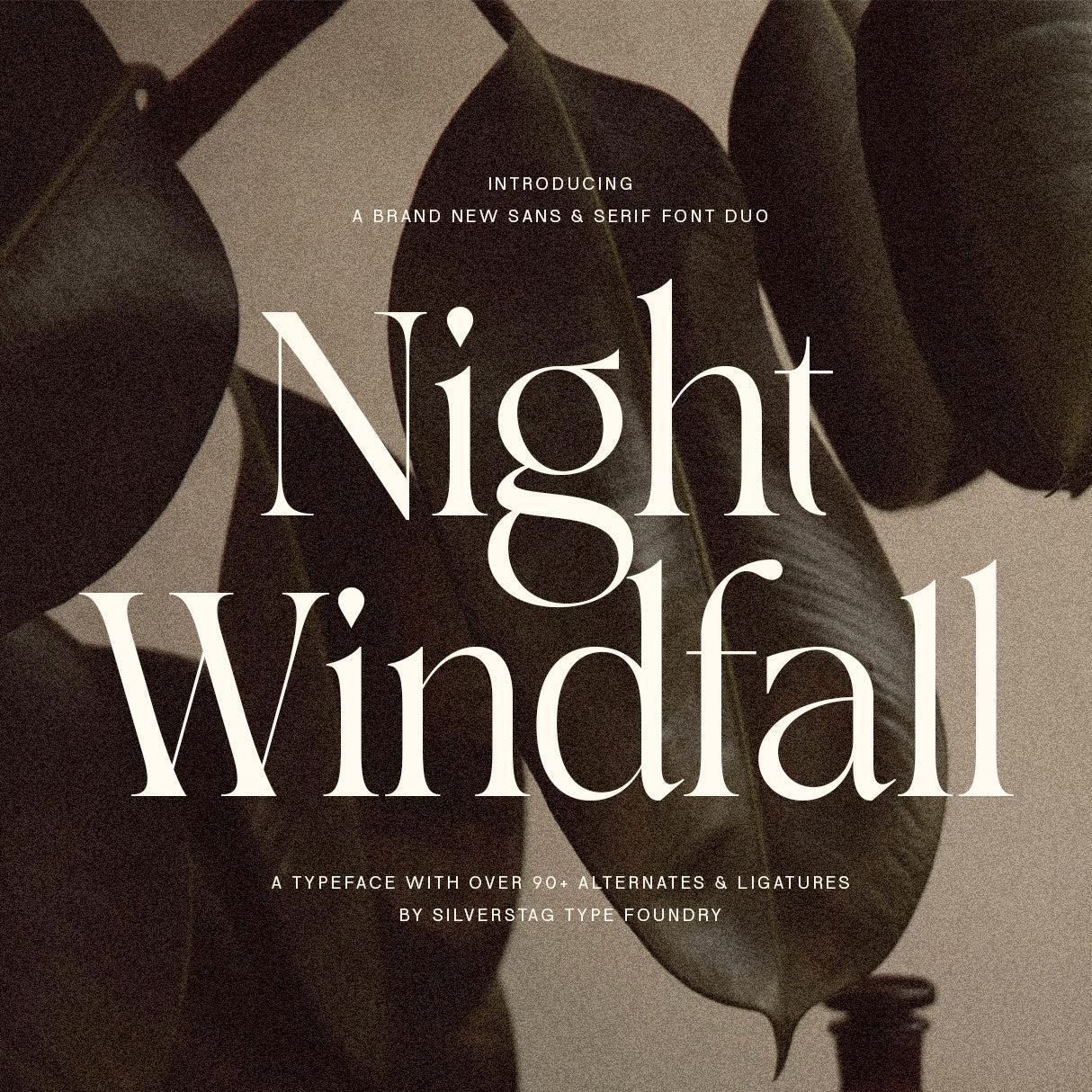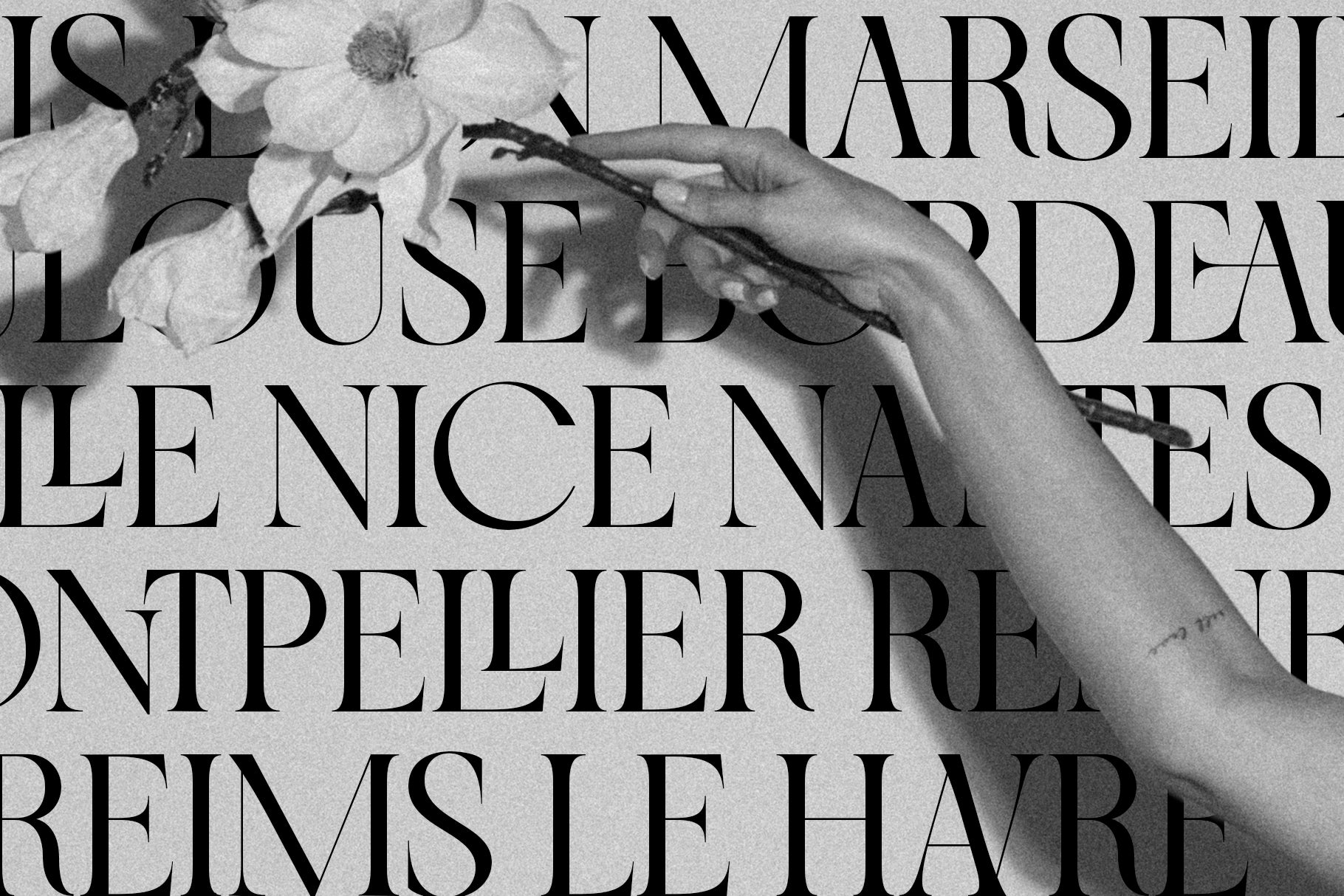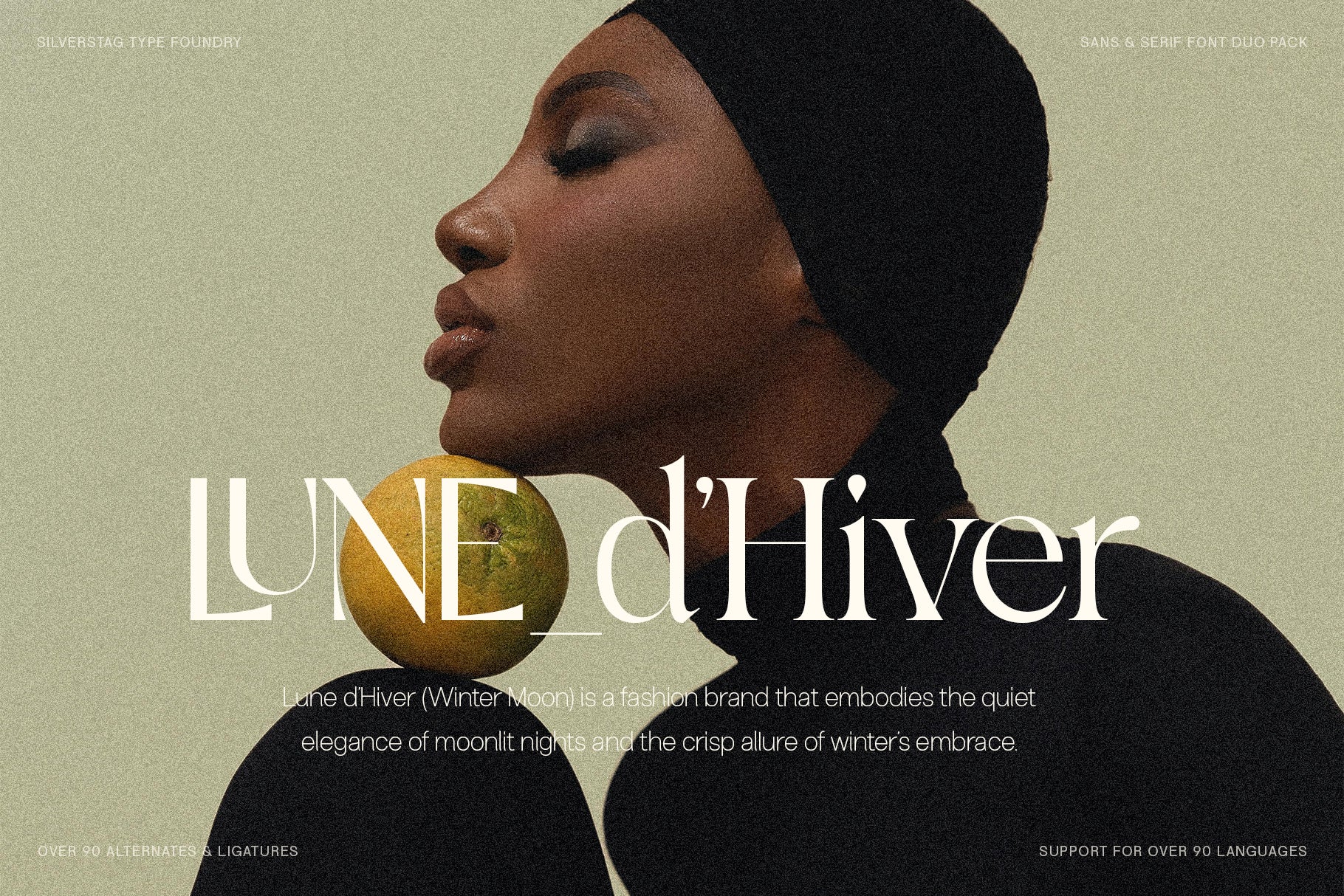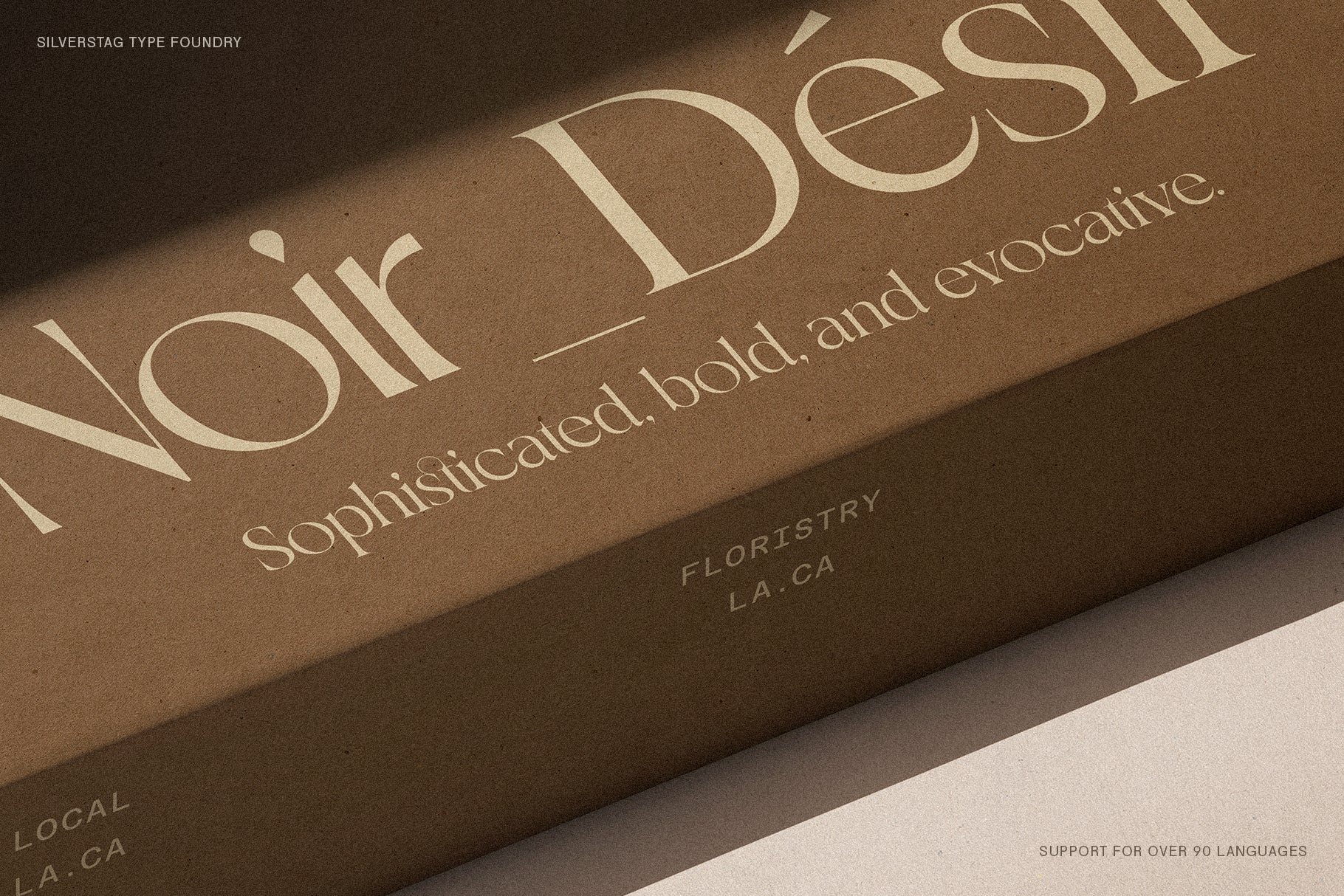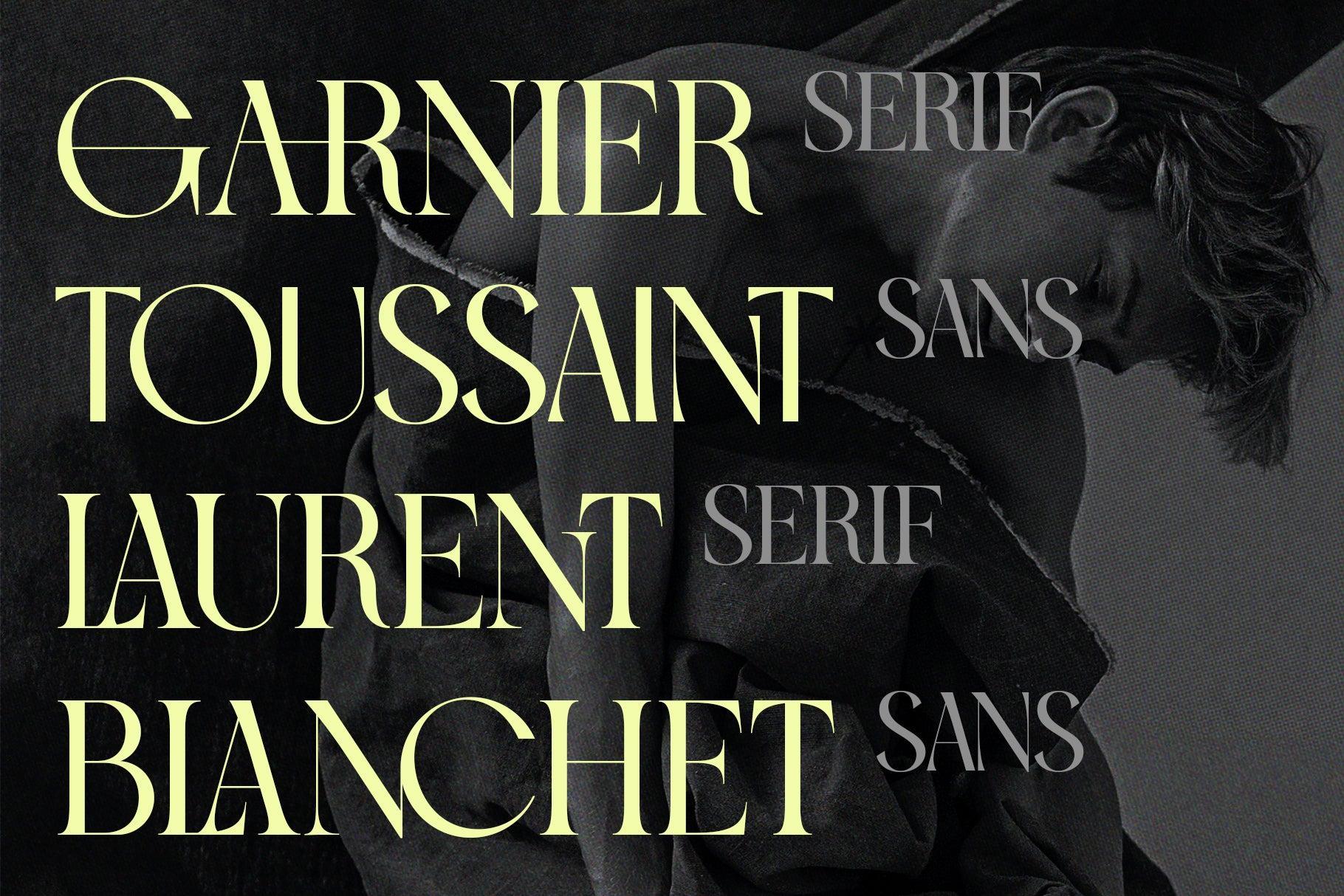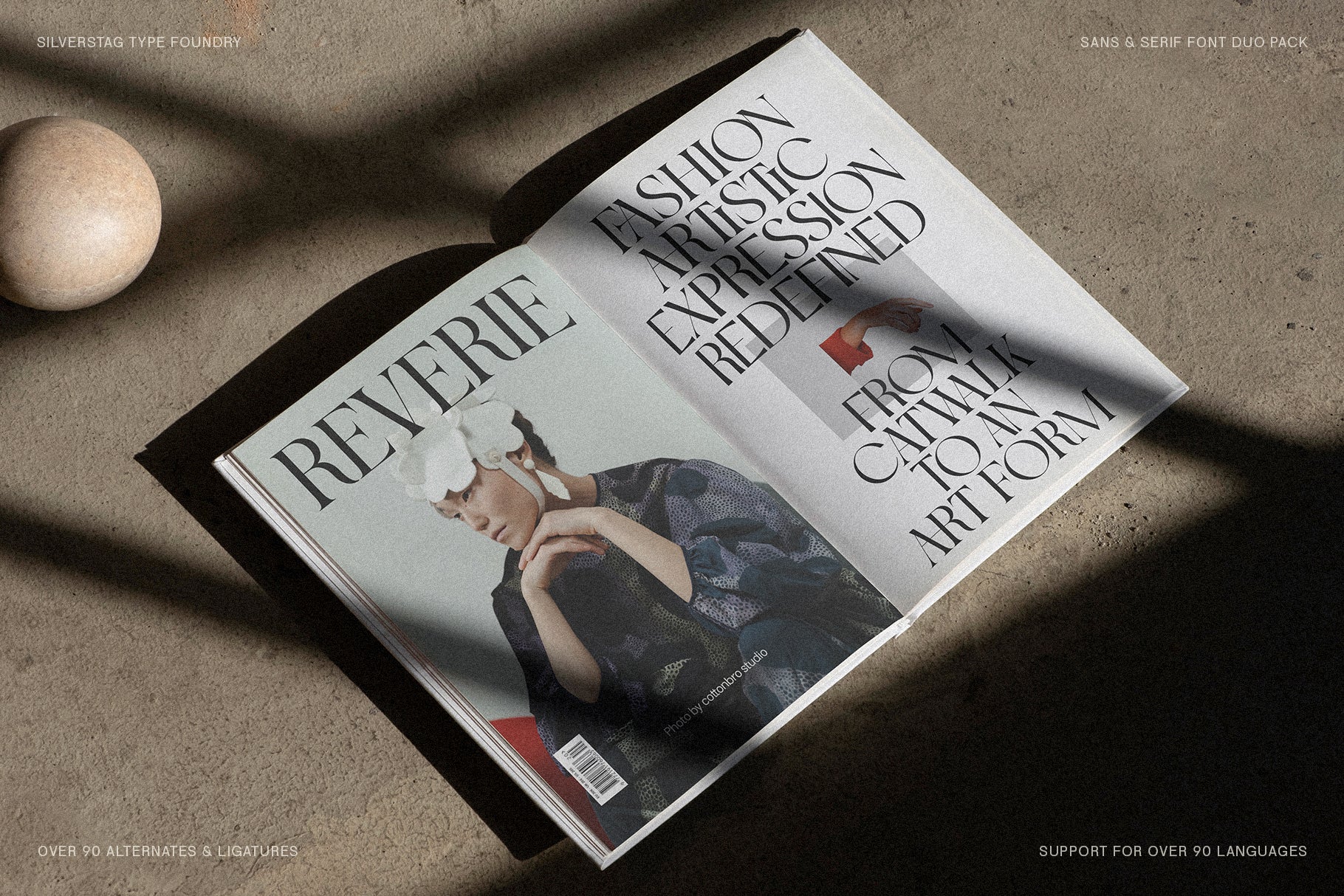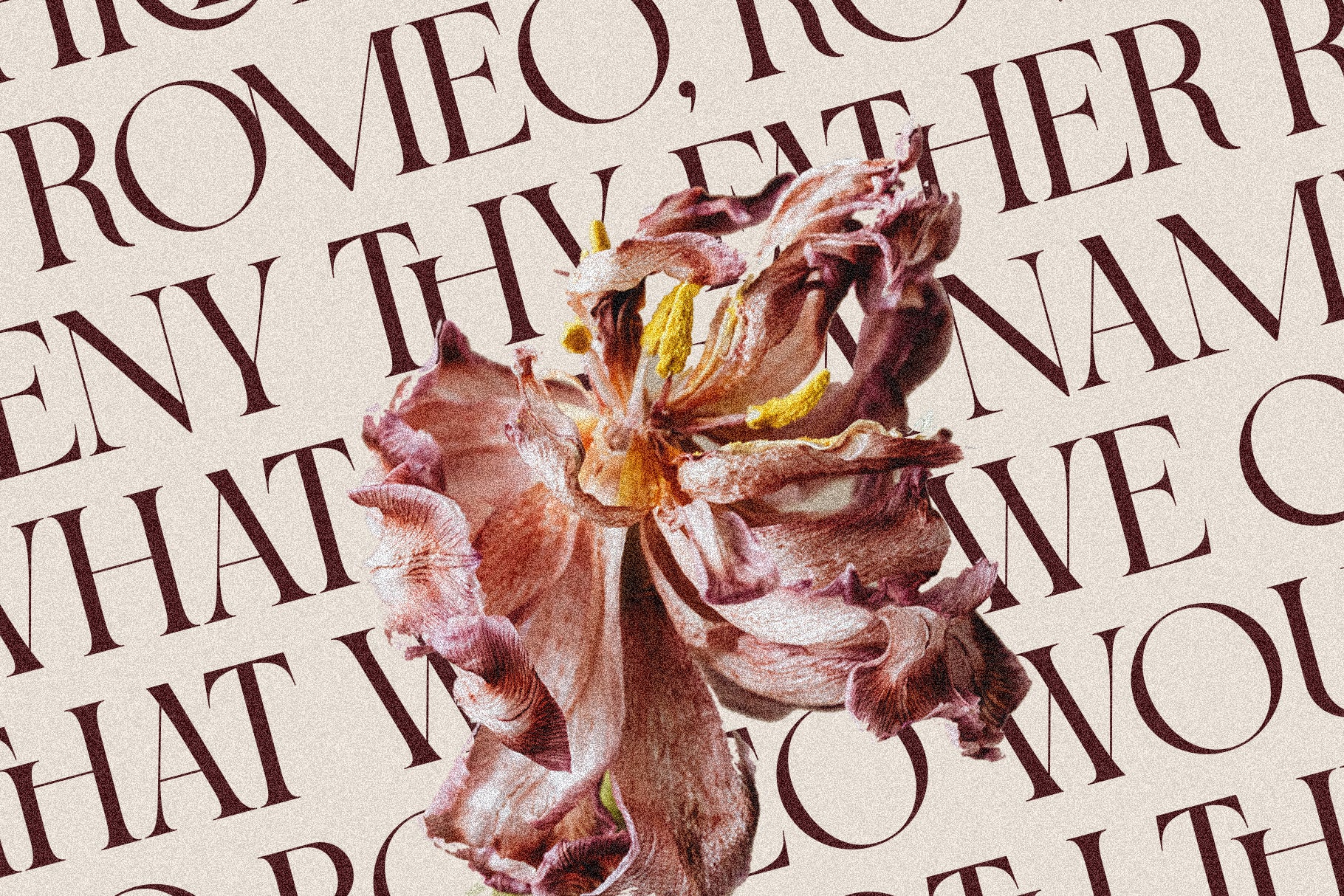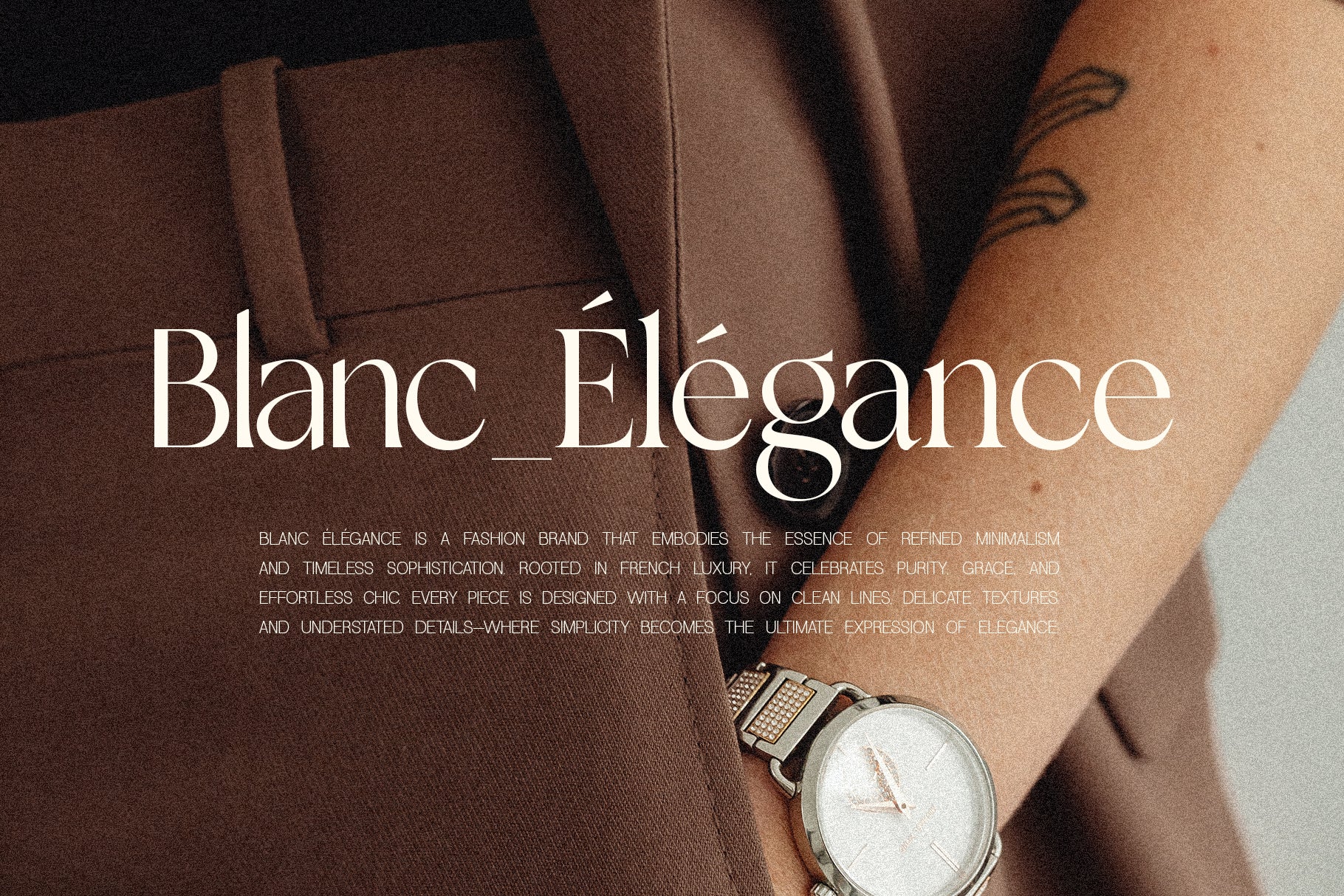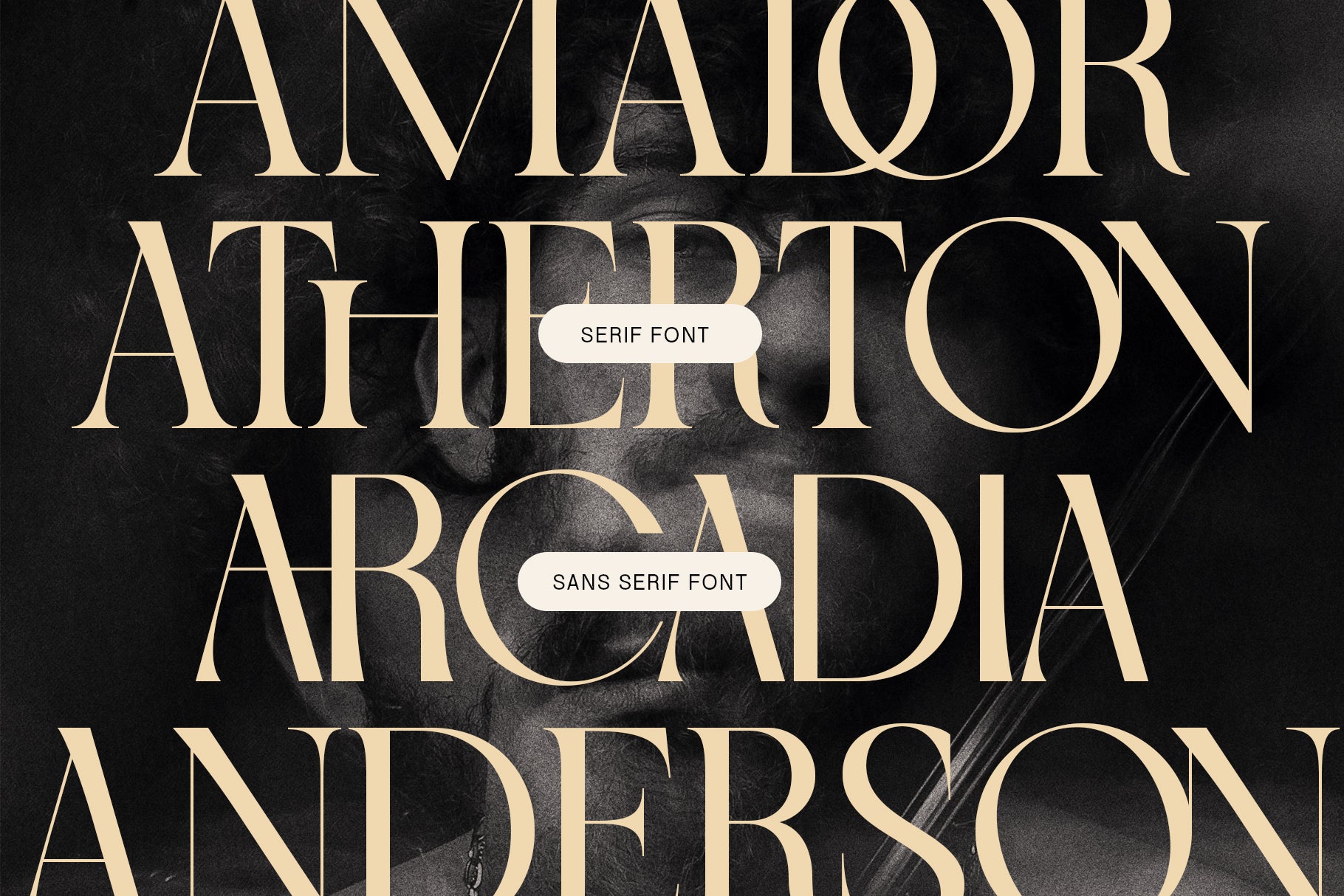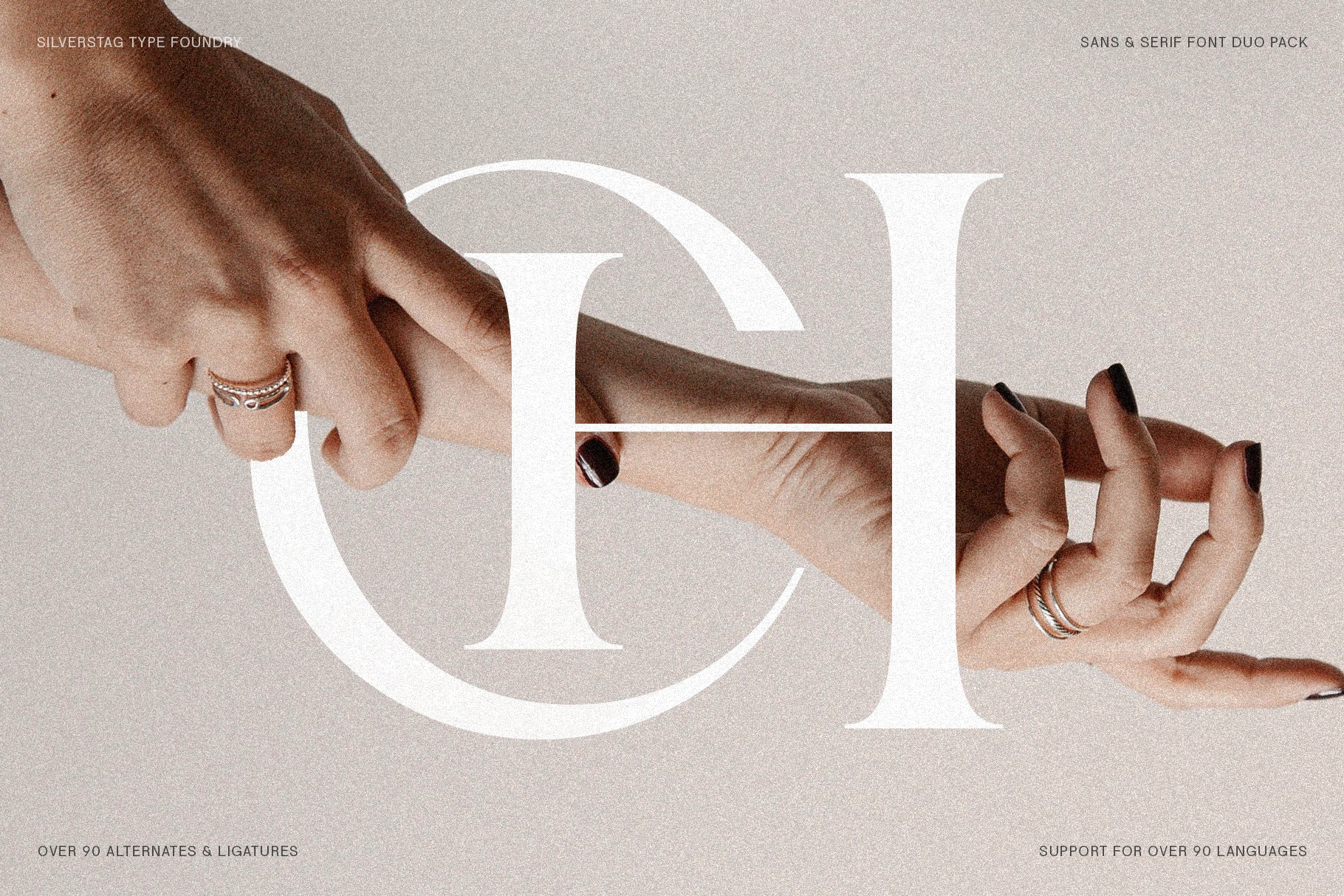
SLTF Night Windfall - Sans & Serif Font Duo
Meet SLTF Night Windfall Sans & Serif, a seamlessly crafted font duo designed to bring contrast, versatility, and refinement to your work. Based on the beloved SLTF Night Windfall, this new release introduces a serif counterpart that perfectly aligns with the original sans, creating endless design possibilities.
With identical metrics, both fonts blend effortlessly, allowing you to mix, match, and layer them with ease. Whether you’re crafting elegant editorial layouts, high-end branding, or sophisticated packaging, this duo delivers both chic modernity and timeless charm in one package.
What’s Inside the SLTF Night Windfall Duo?
Two perfectly complementary fonts – a sleek sans serif & a refined serif
Over 90 meticulously crafted ligatures for fluid, custom-like typography
Seamless pairing with identical proportions for effortless mixing
Support for 90+ languages, covering Latin-based scripts
Refined kerning & spacing, ensuring professional-quality typography
Ideal for: Editorial design, luxury branding, logos, packaging, web & social media
Designed to stand alone or harmonize together, SLTF Night Windfall Sans & Serif invites you to experiment, layer, and create designs with effortless elegance and modern sophistication. Whether you prefer the clean minimalism of sans or the graceful curves of serif, this duo adapts to your creative vision.
The **SLTF Night Windfall - Sans & Serif Font Duo** features two complementary fonts: a sleek sans serif and a refined serif, both designed with identical metrics for seamless pairing. This duo includes over 90 ligatures, supports 90+ languages, and offers refined kerning and spacing for professional-quality typography.